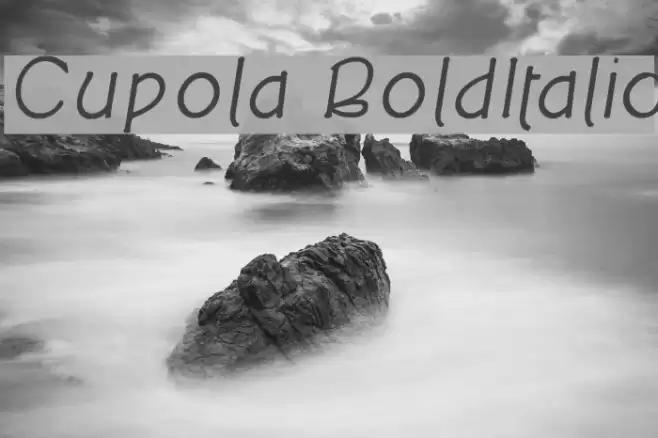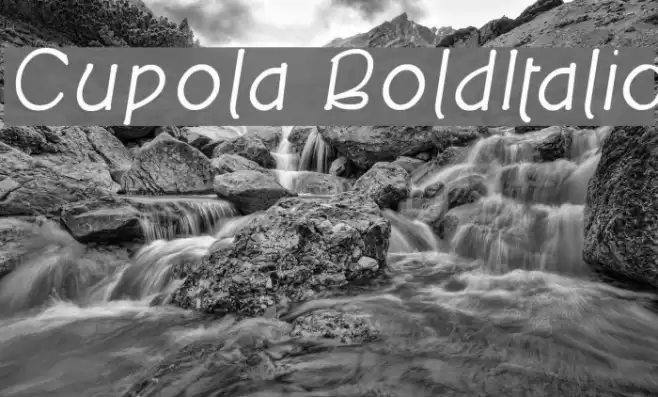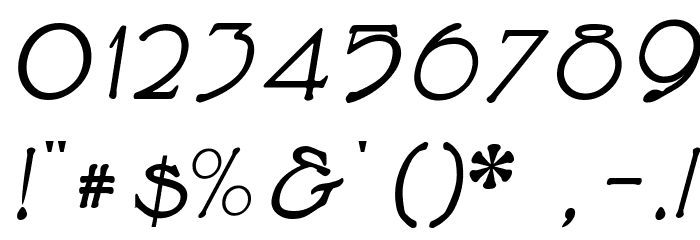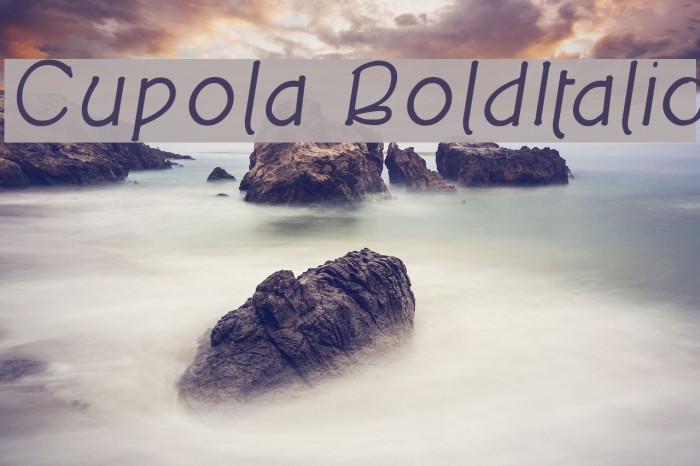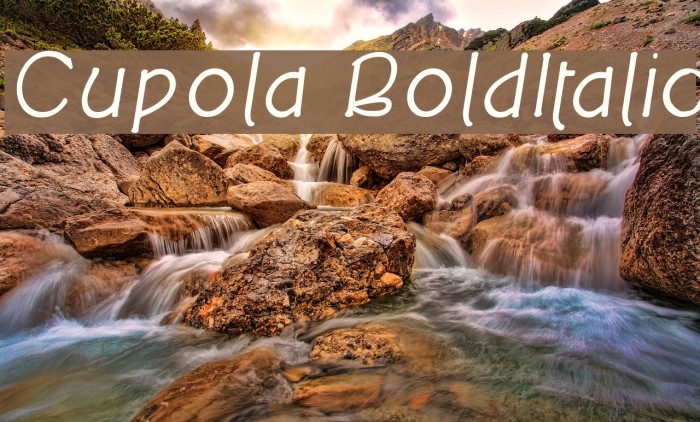
Cupola BoldItalic Font
Cupola BoldItalic Description
This font features a dynamic and flowing style, characterized by its bold and italicized appearance. The letters exhibit a slight slant, adding a sense of movement and elegance. The strokes are smooth and consistent, with a moderate contrast between thick and thin lines. The uppercase letters maintain a uniform height, while the lowercase letters are slightly more varied, adding to the font's playful nature. The numerals are clear and distinct, matching the overall style of the alphabet. Special characters are well-integrated, maintaining the same fluidity and boldness. This font is ideal for projects that require a touch of sophistication and flair.
A bold, italicized font with a dynamic and flowing style from Handwritten fonts.
- Proposed Projects: Ideal for branding, logos, invitations, and editorial design projects.
- Use Case: Logos, Headlines, Invitations